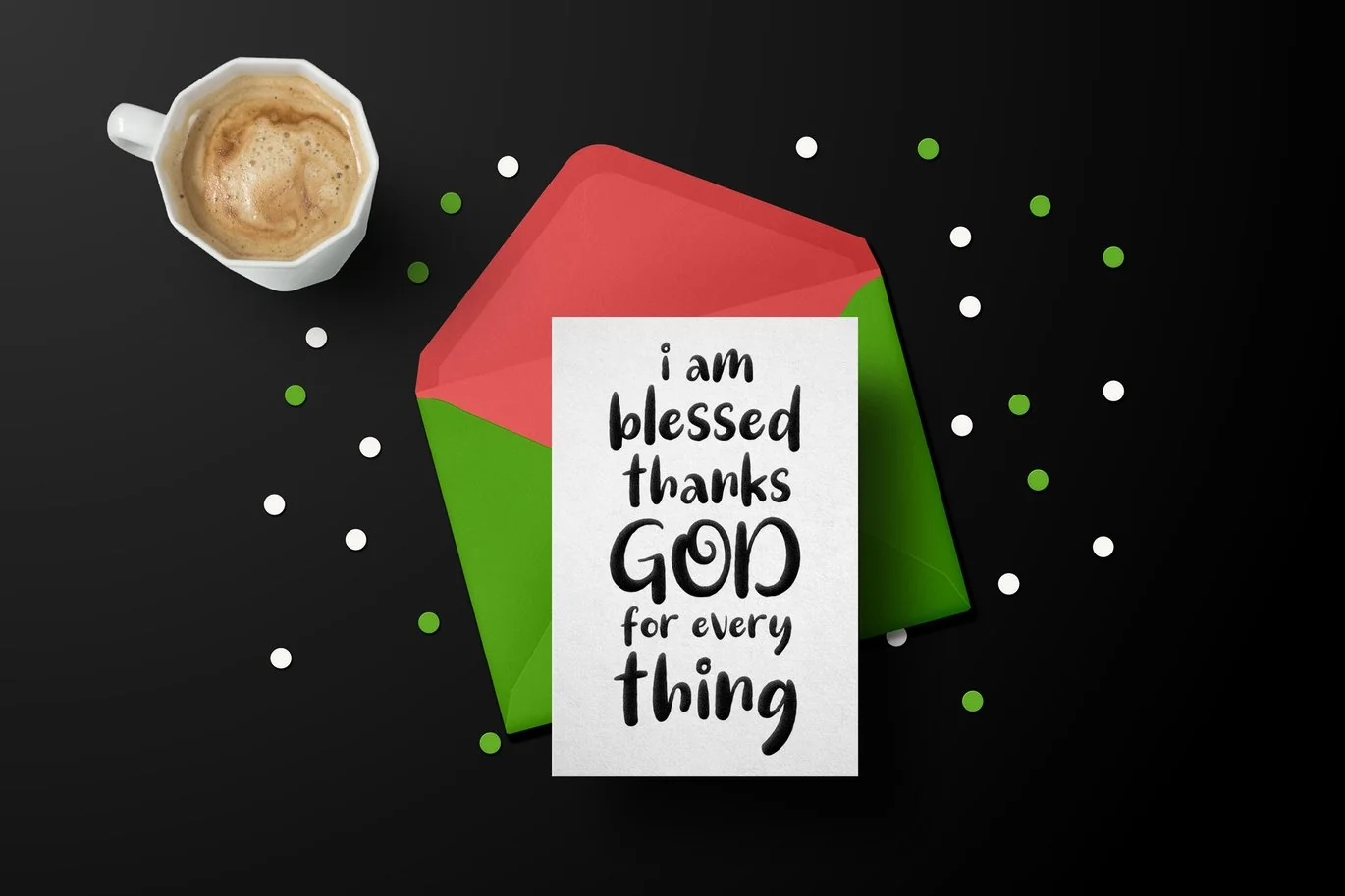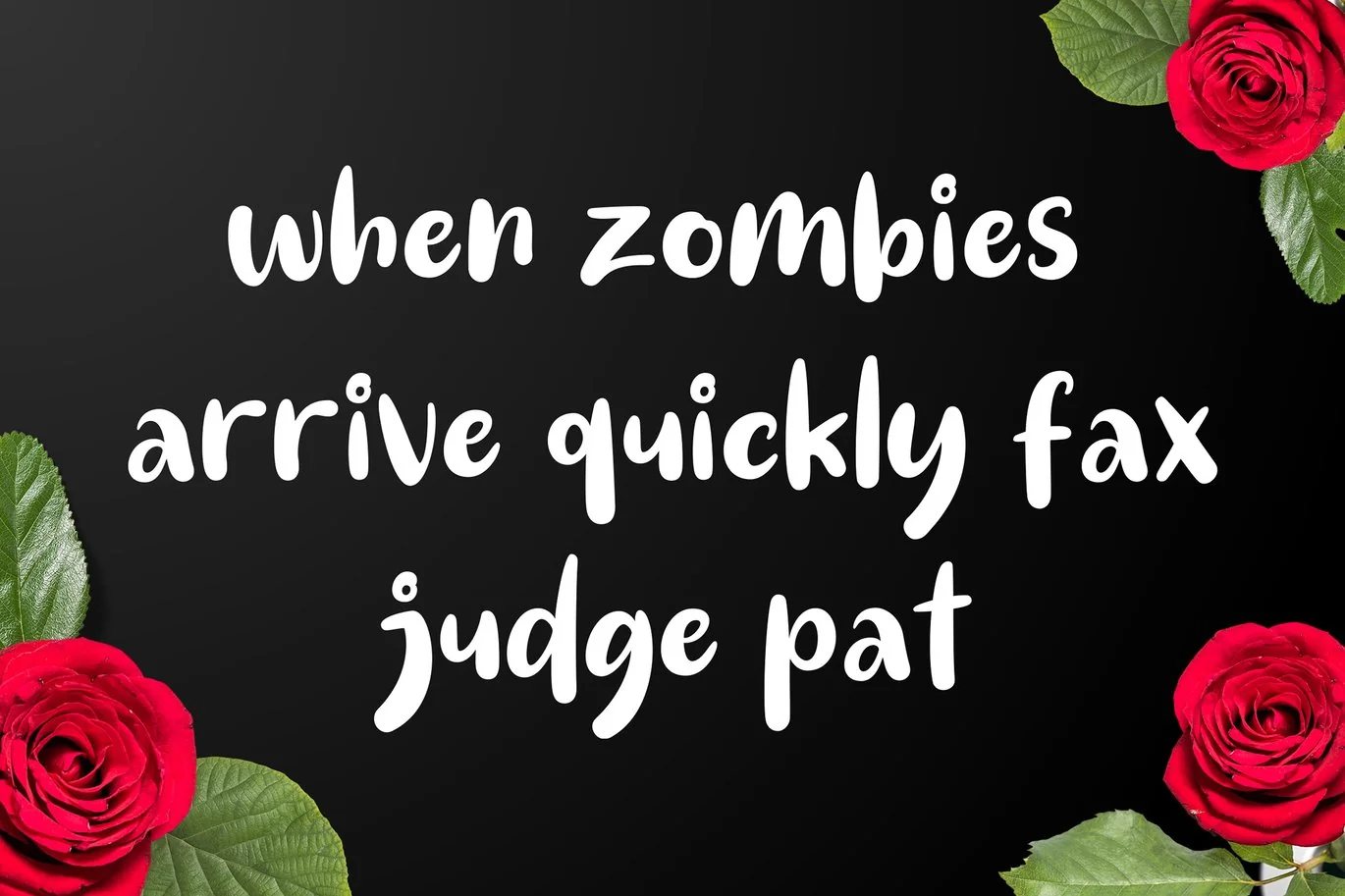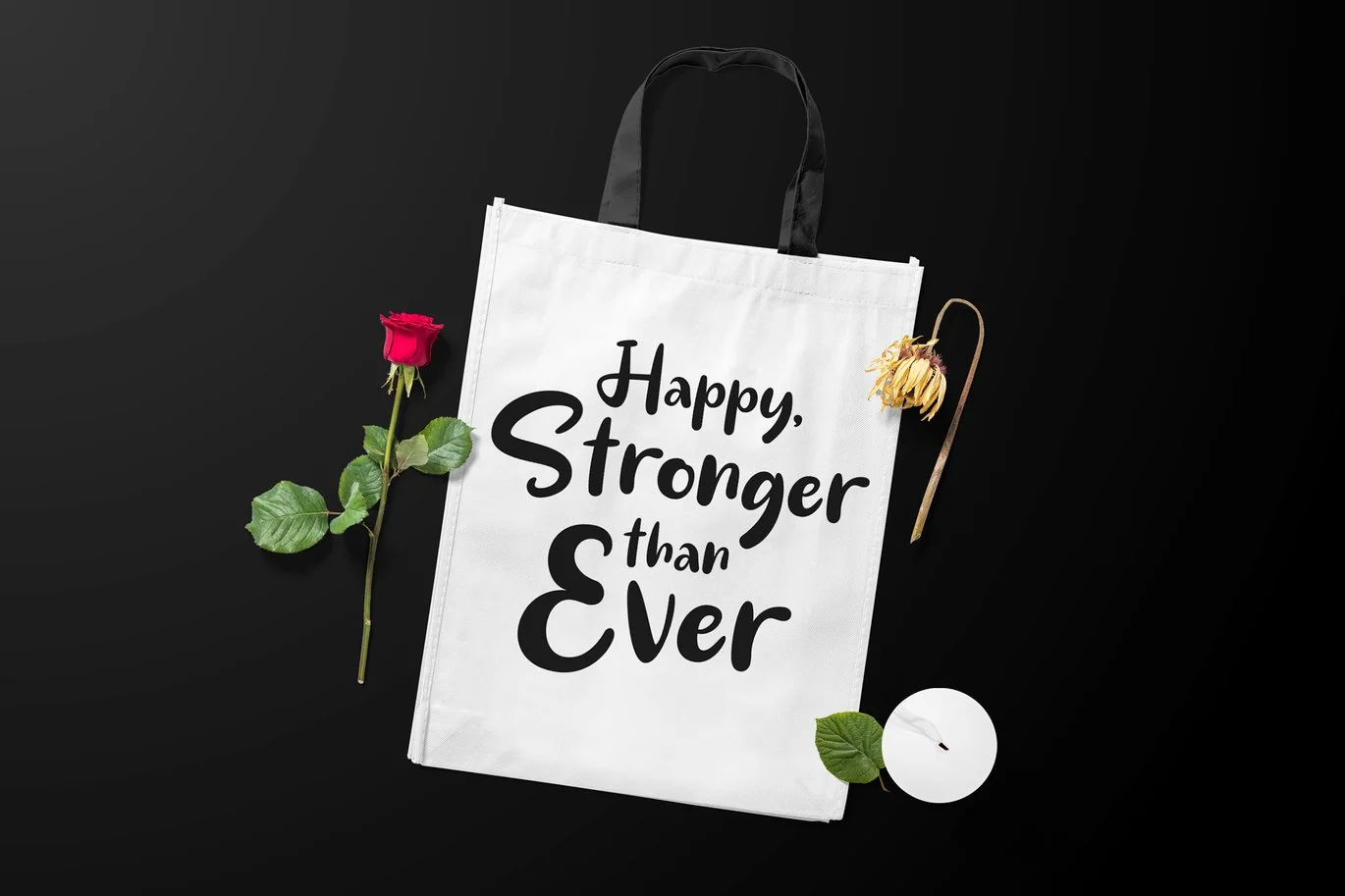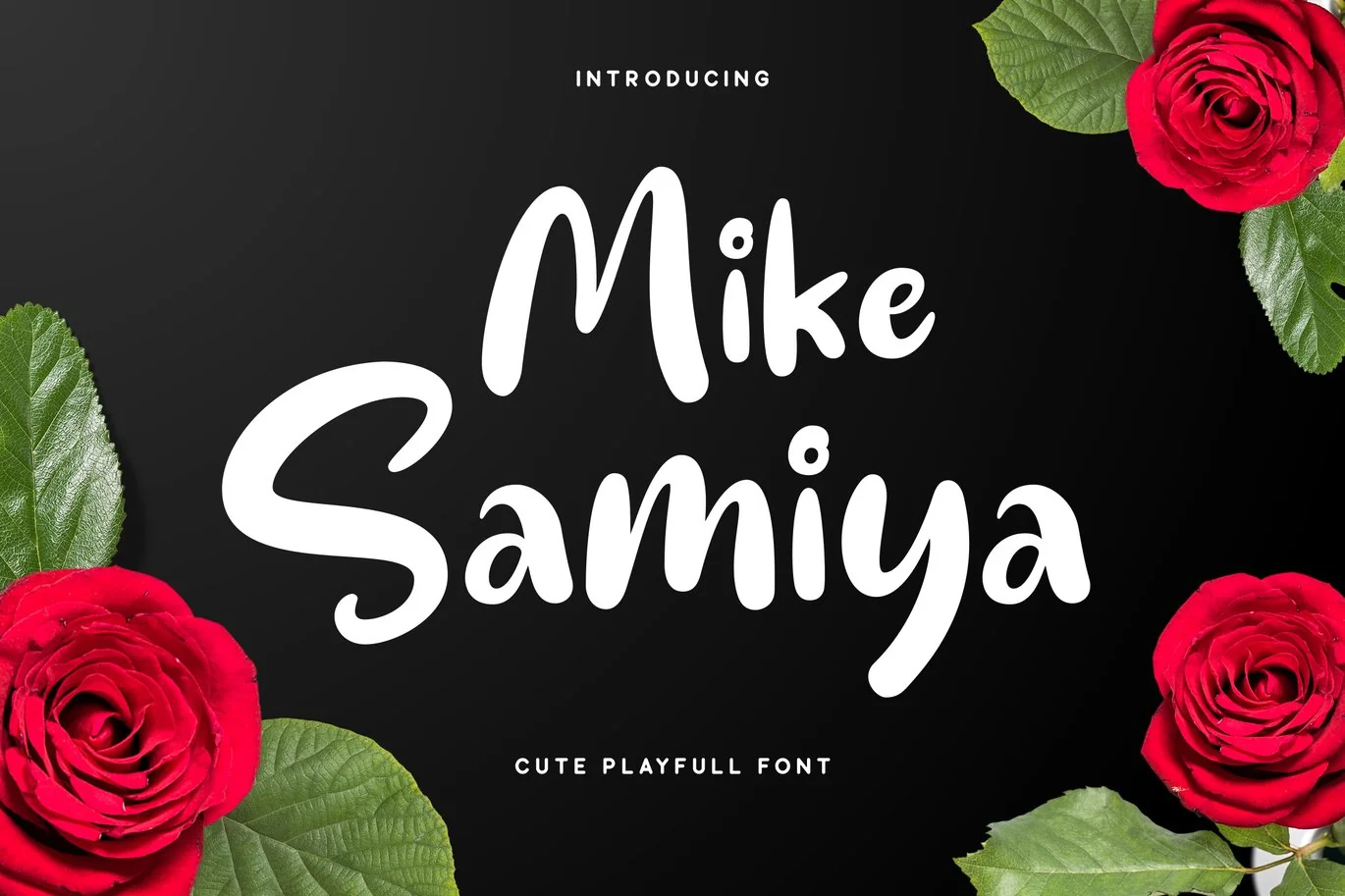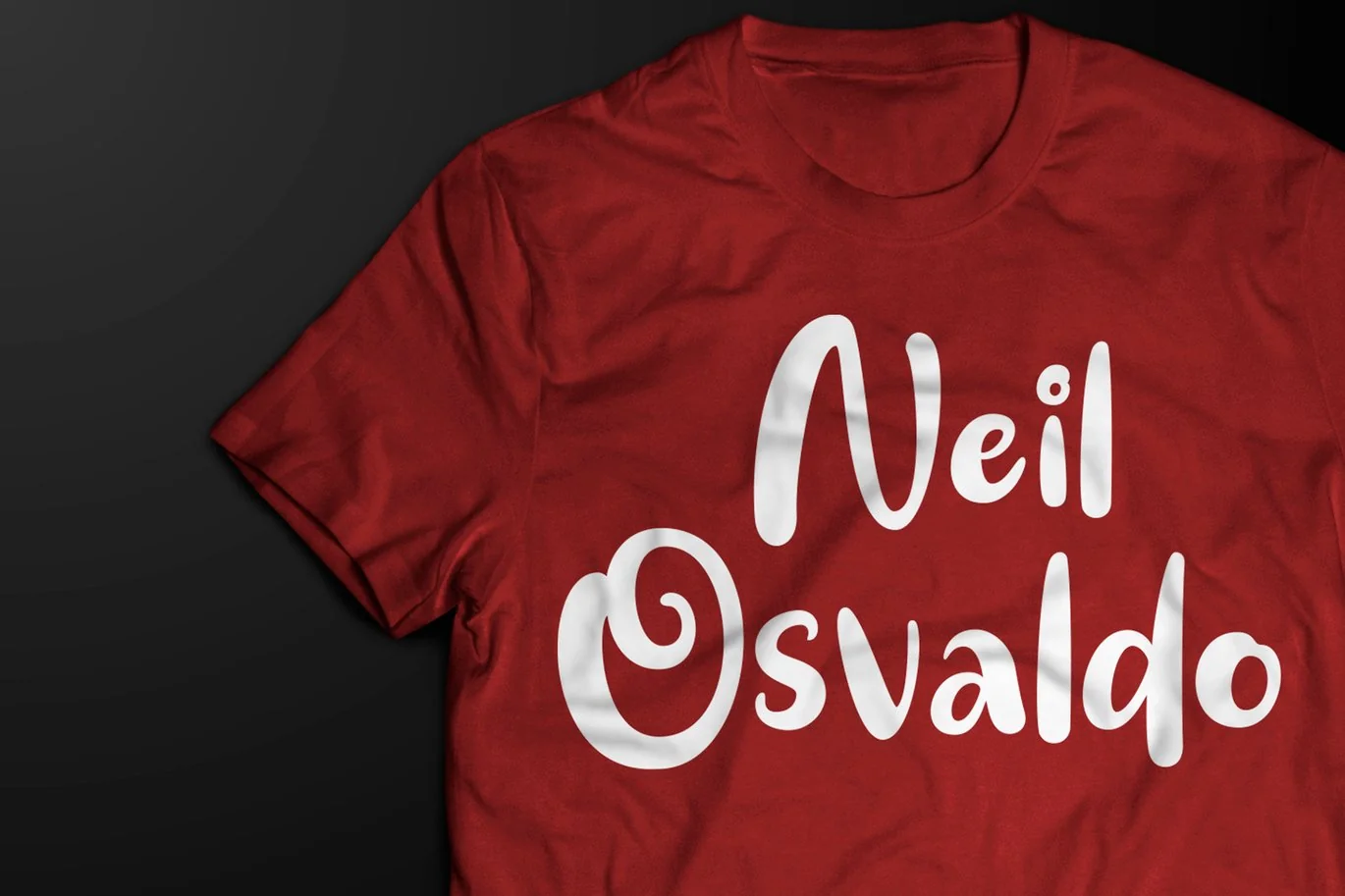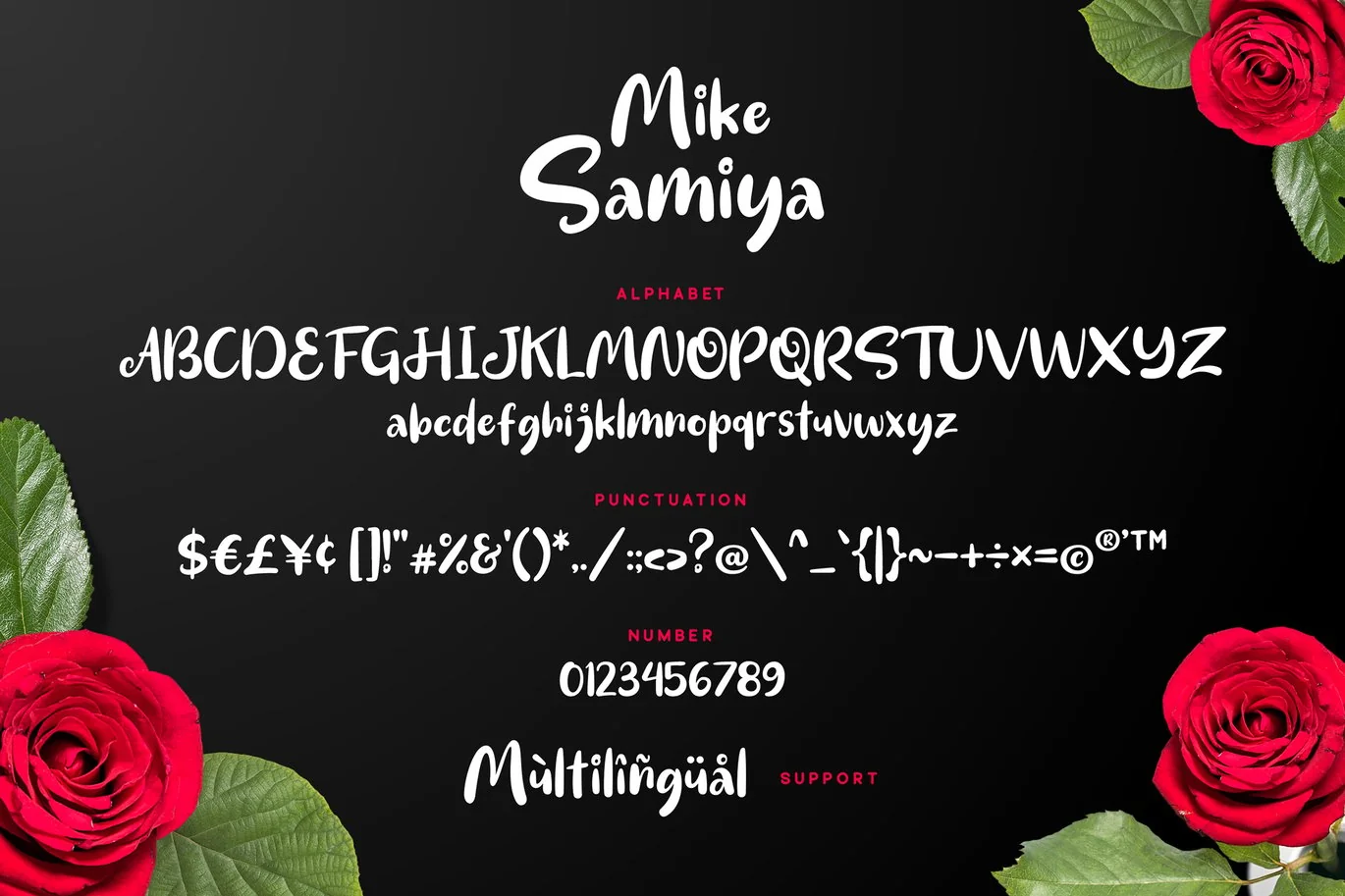
Mike Samiya – Cute Font
Mike Samiya is a cute and powerful script font with incredibly authentic lettering. Use it to turn any design idea into a true standout!
- Numerals & Punctuations
- Multilingual Language